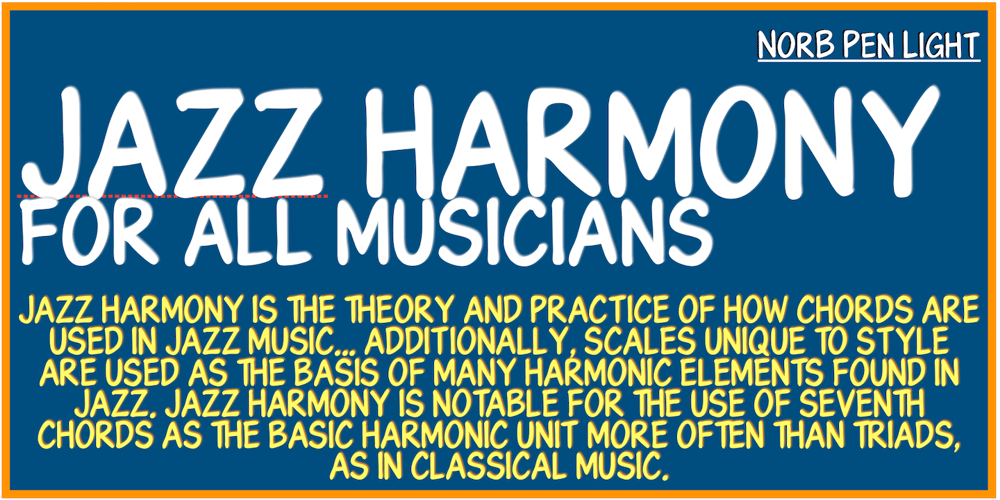
NorB Pen Font Family was designed by Nor Eddine Bahha and published by NorFonts. NorB Pen contains 8 styles and family package options. NorB Pen was inspired from Arial Round font, I use this font for my jazz lead-sheets. It’s a handwritten text font emulating a round marker permanent pen. You can use this font with any word processing program for text and display use, print and web projects, apps and ePub, comic books, graphic identities, branding, editorial, advertising, scrapbooking, cards and invitations and any casual lettering purpose… or even just for fun! NorB Pen comes with 8 weights, each with their matching italics and in a Light, Normal, Bold and Heavy version.